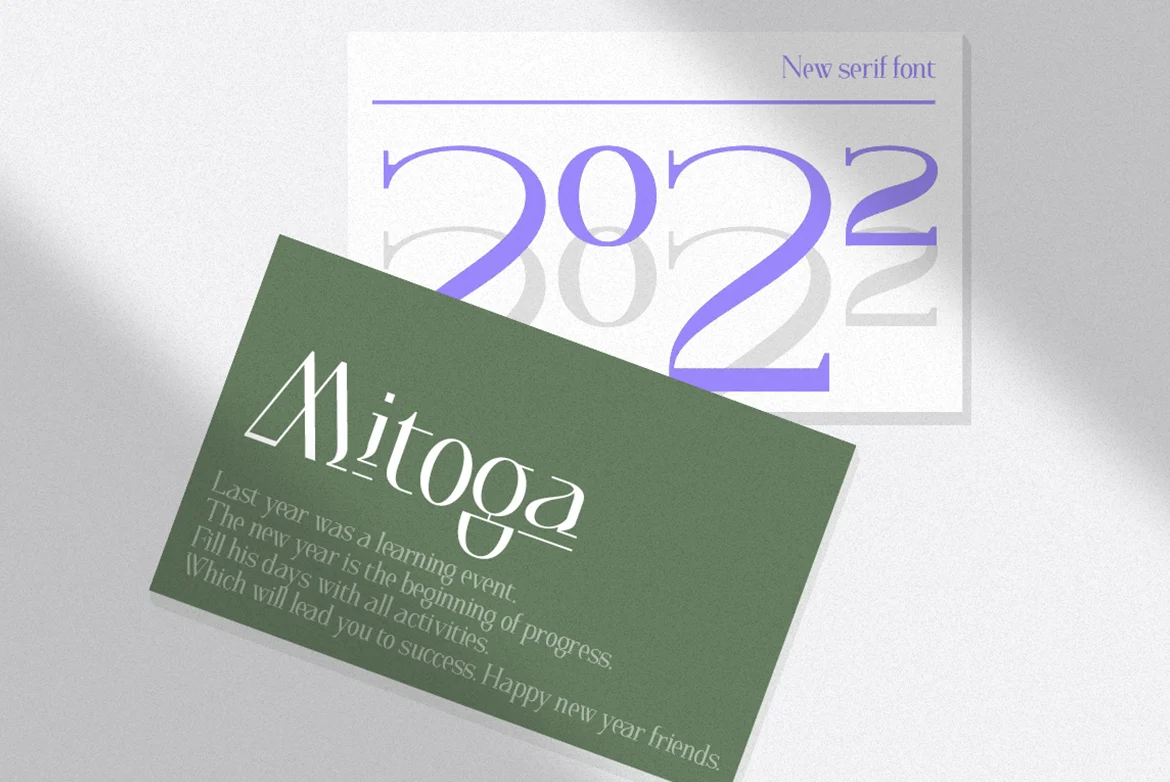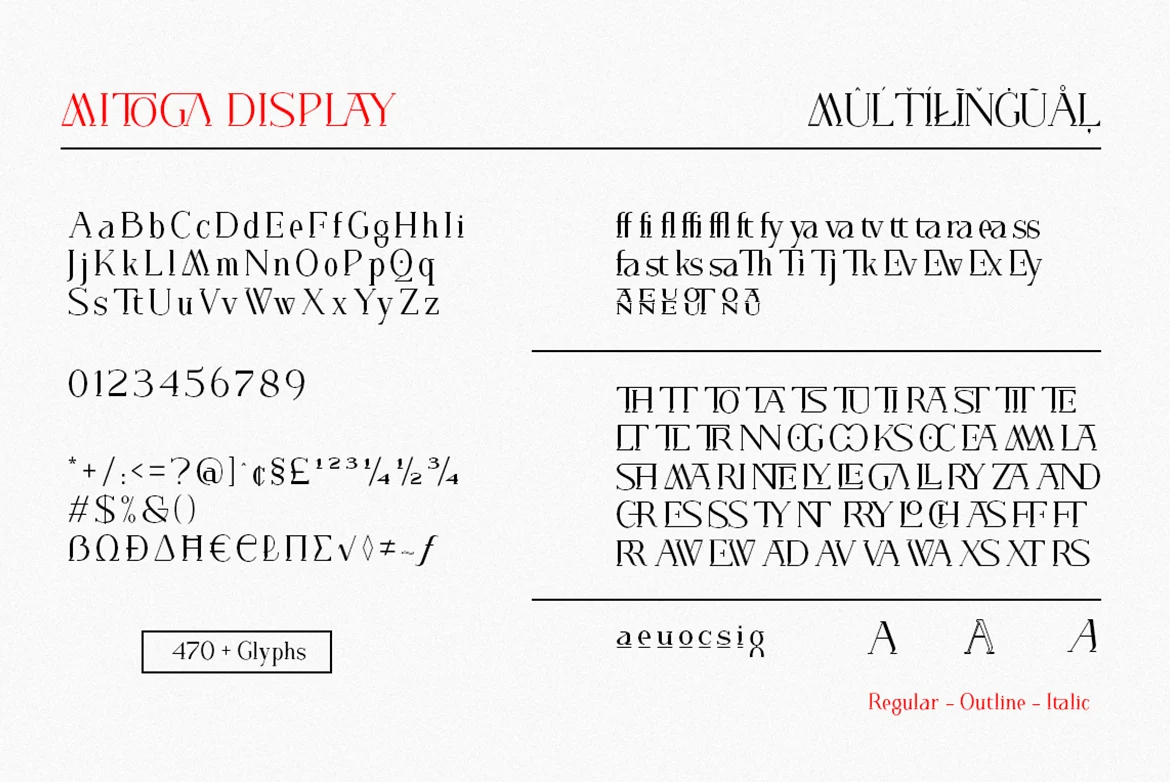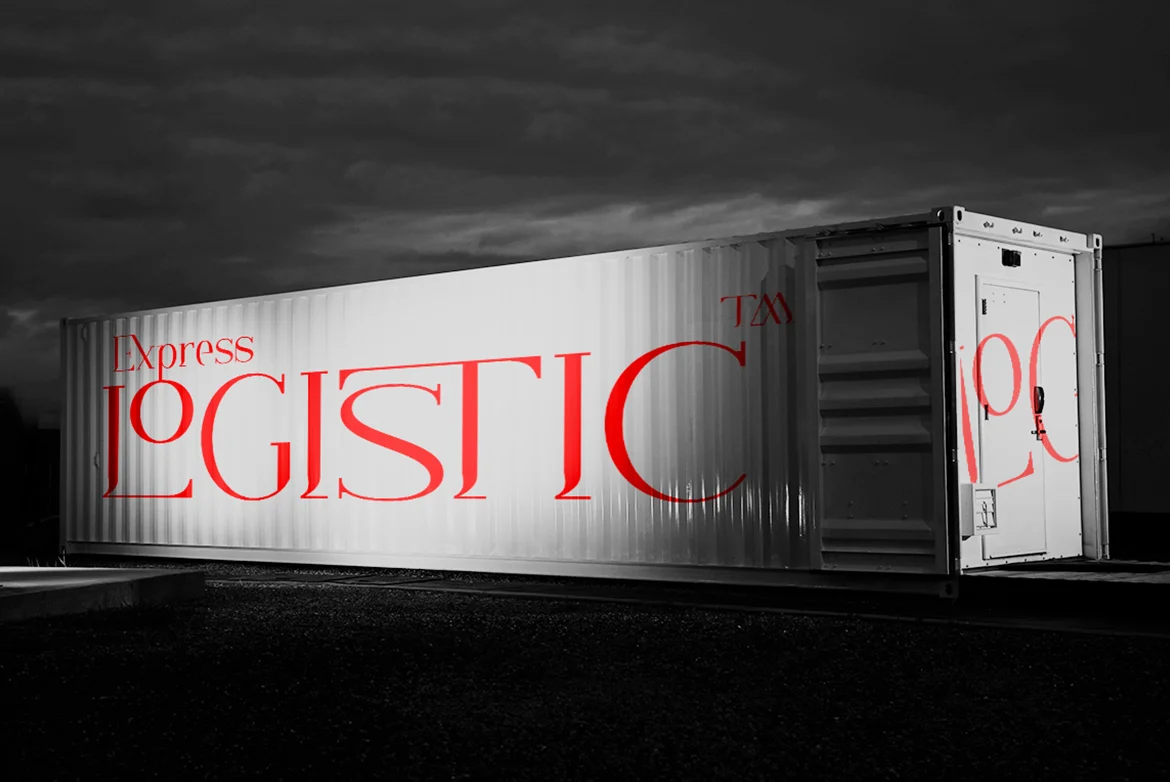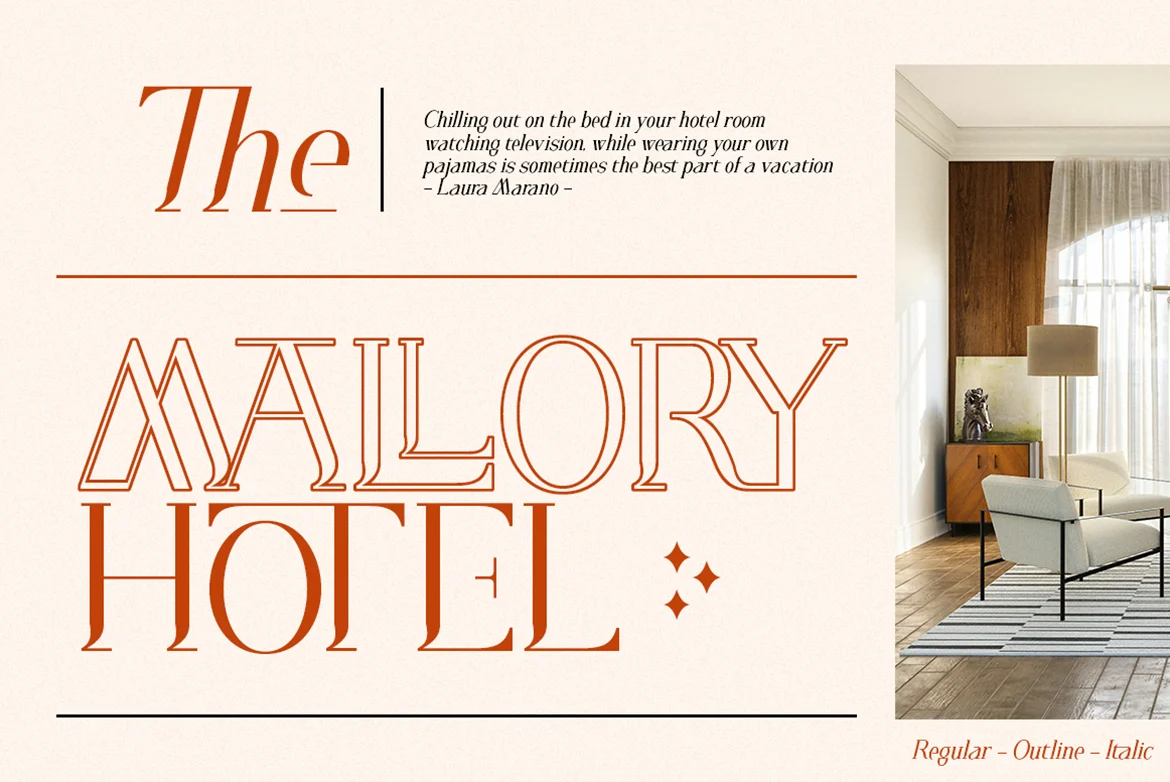
Mitoga display Font
Mitoga Display is a very versatile font. Also available Mitoga Italic and Mitoga Outline to help you mix and match it to fit your creative work in harmony. perfect for magazine images, to wedding invitations, to branding, poster design, and more.
Numerals & Punctuation Stylistic Alternates & Ligatures PUA Encoded Characters